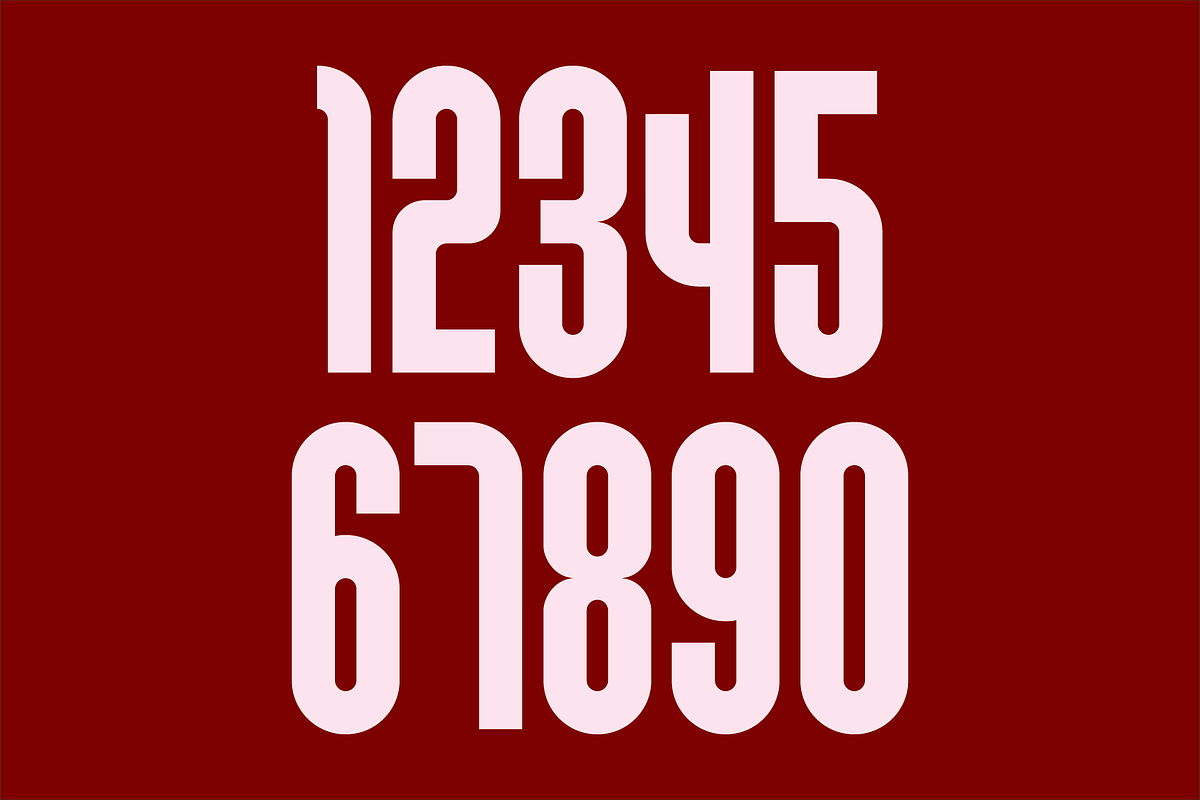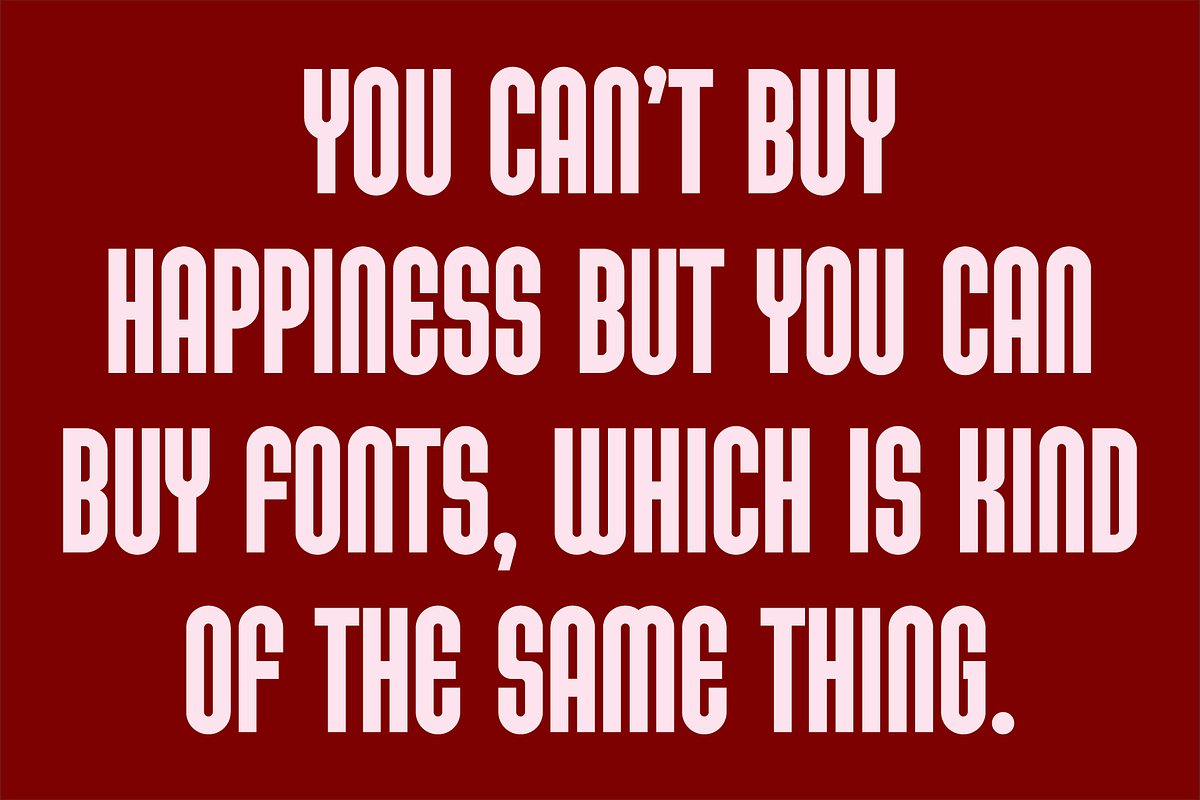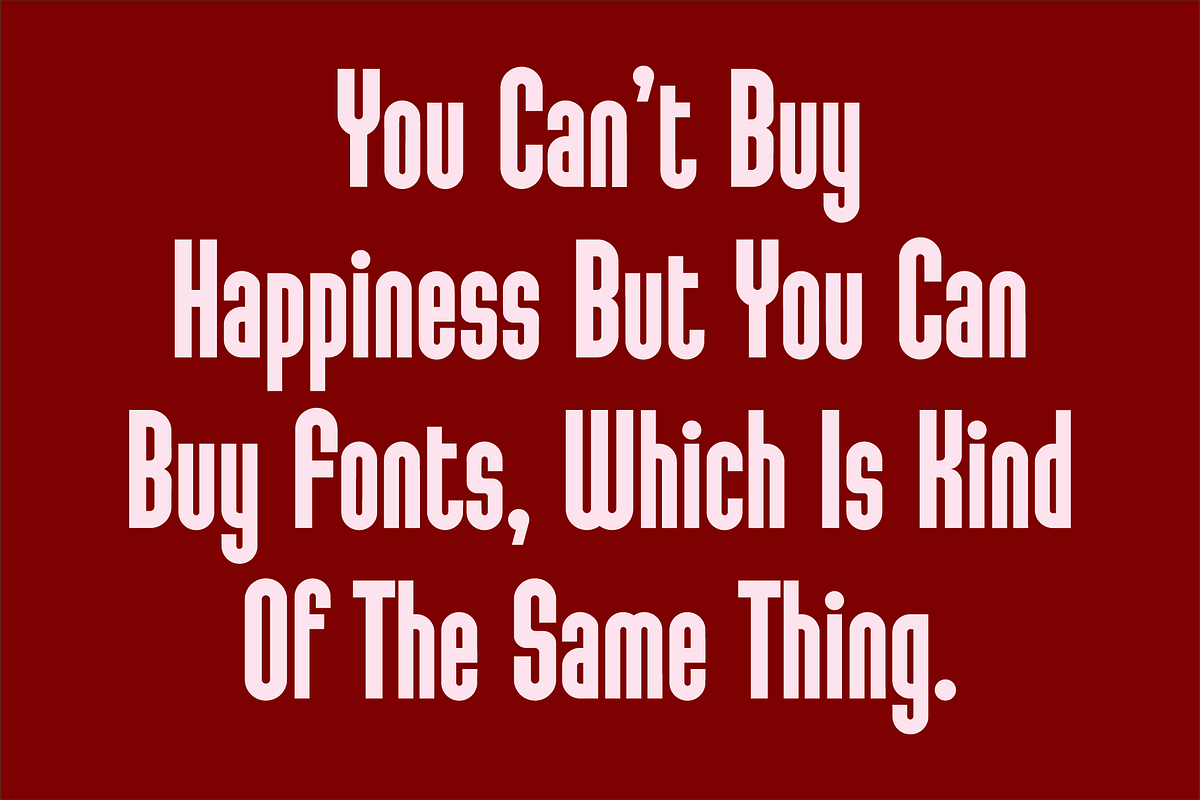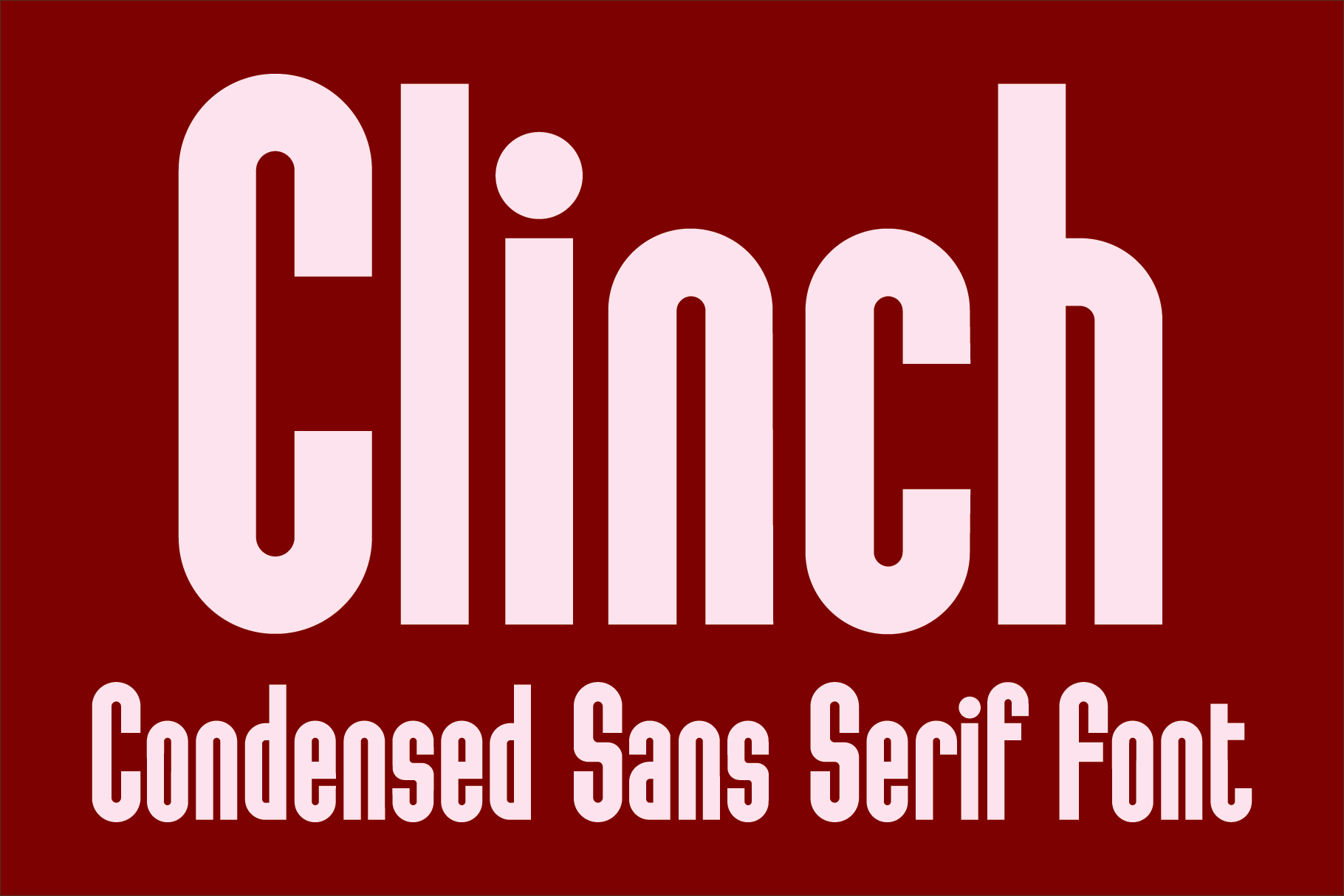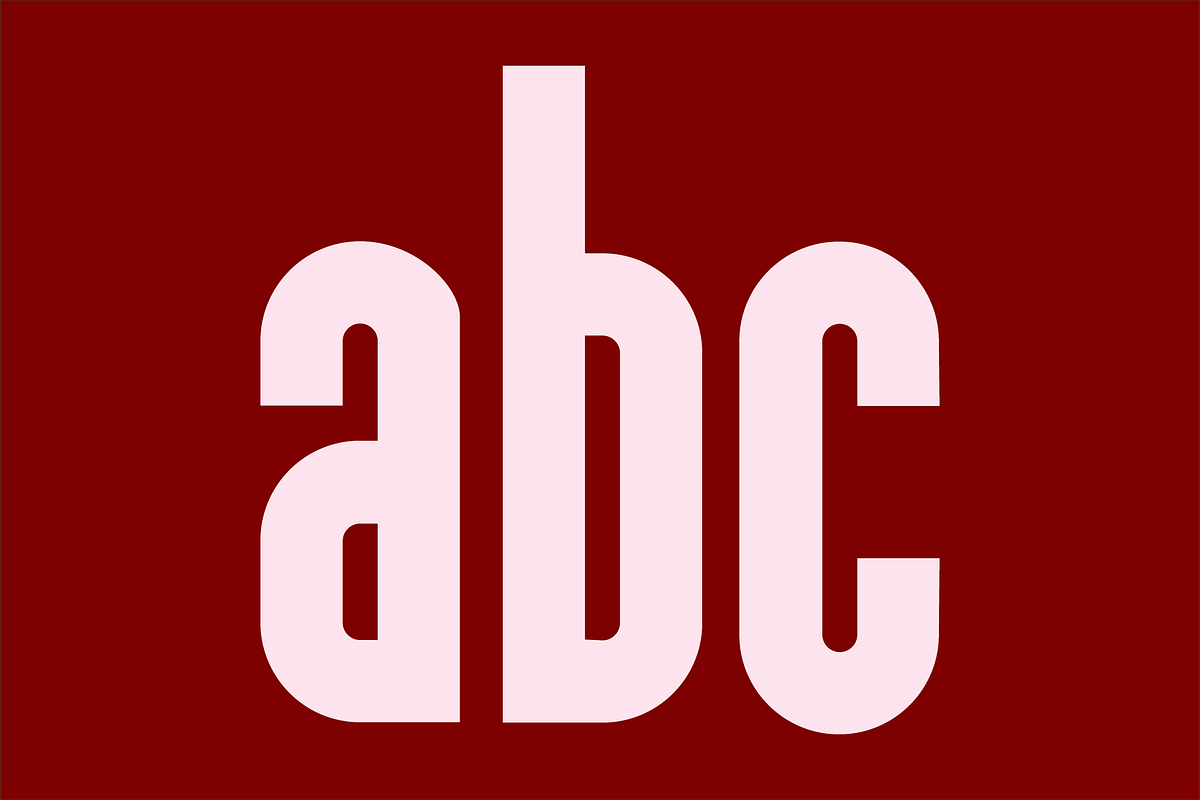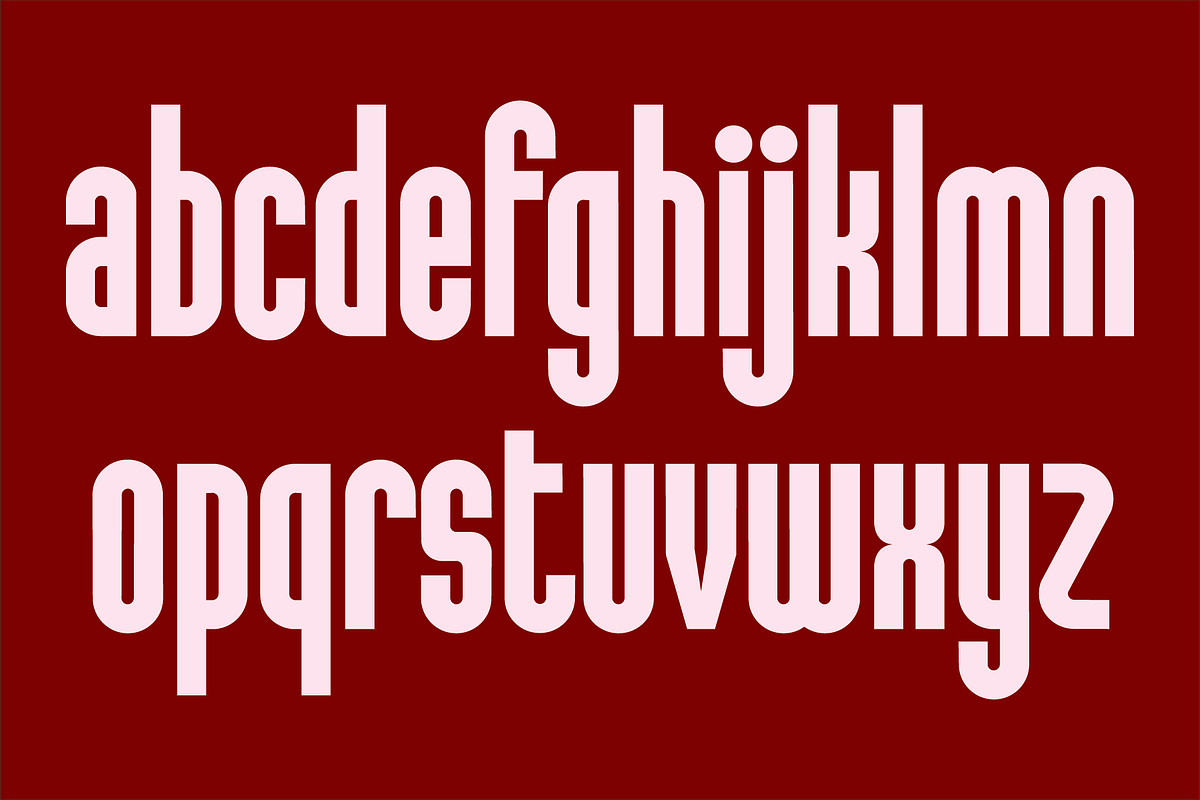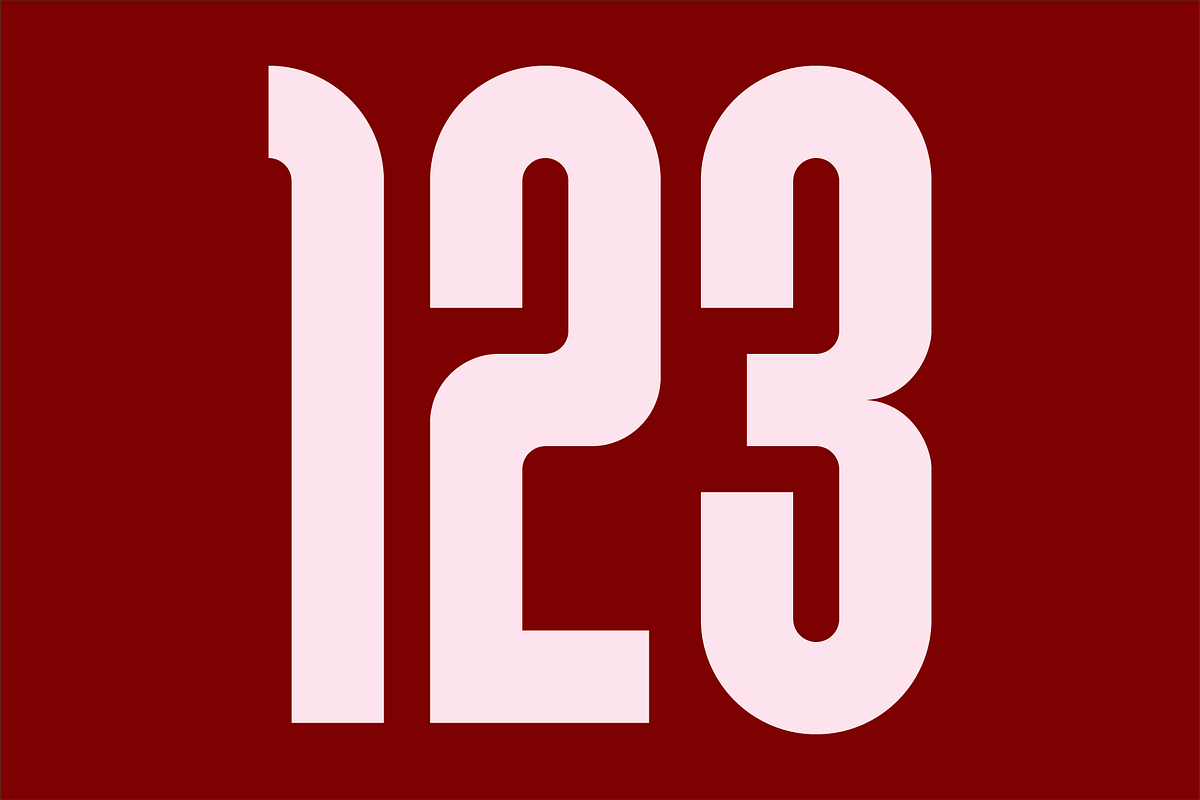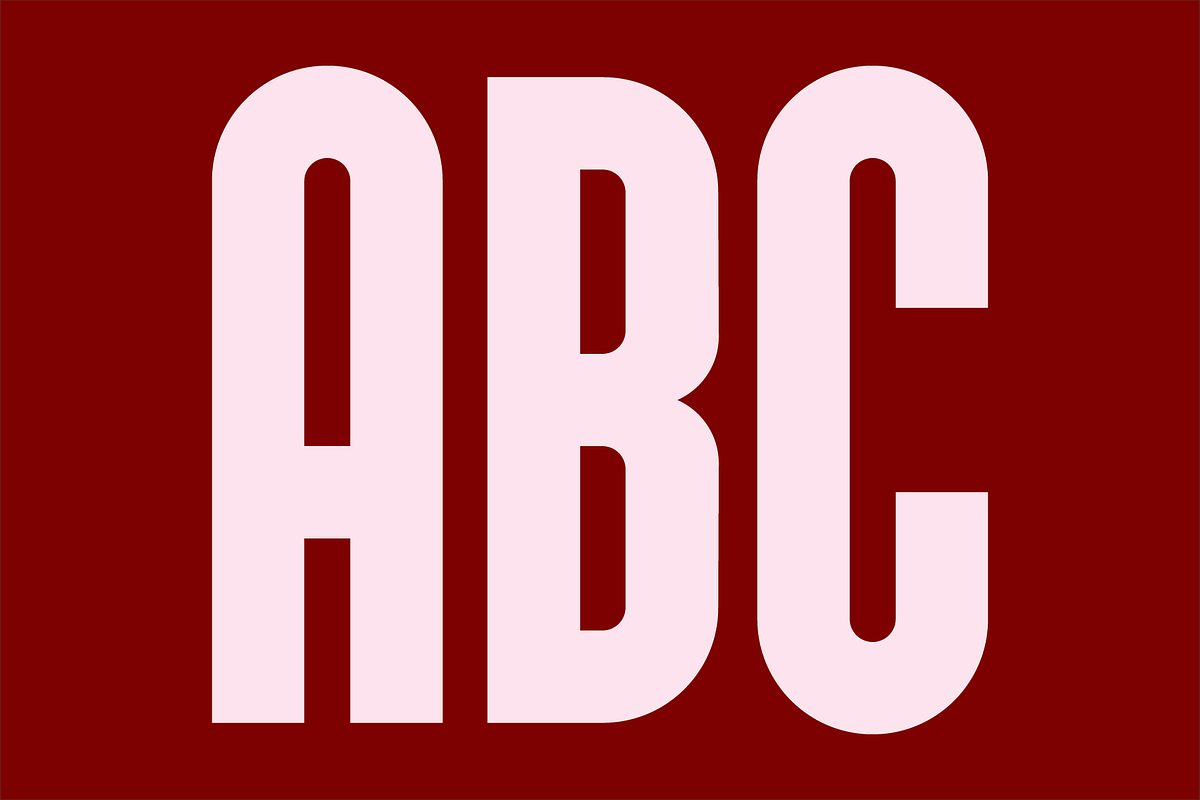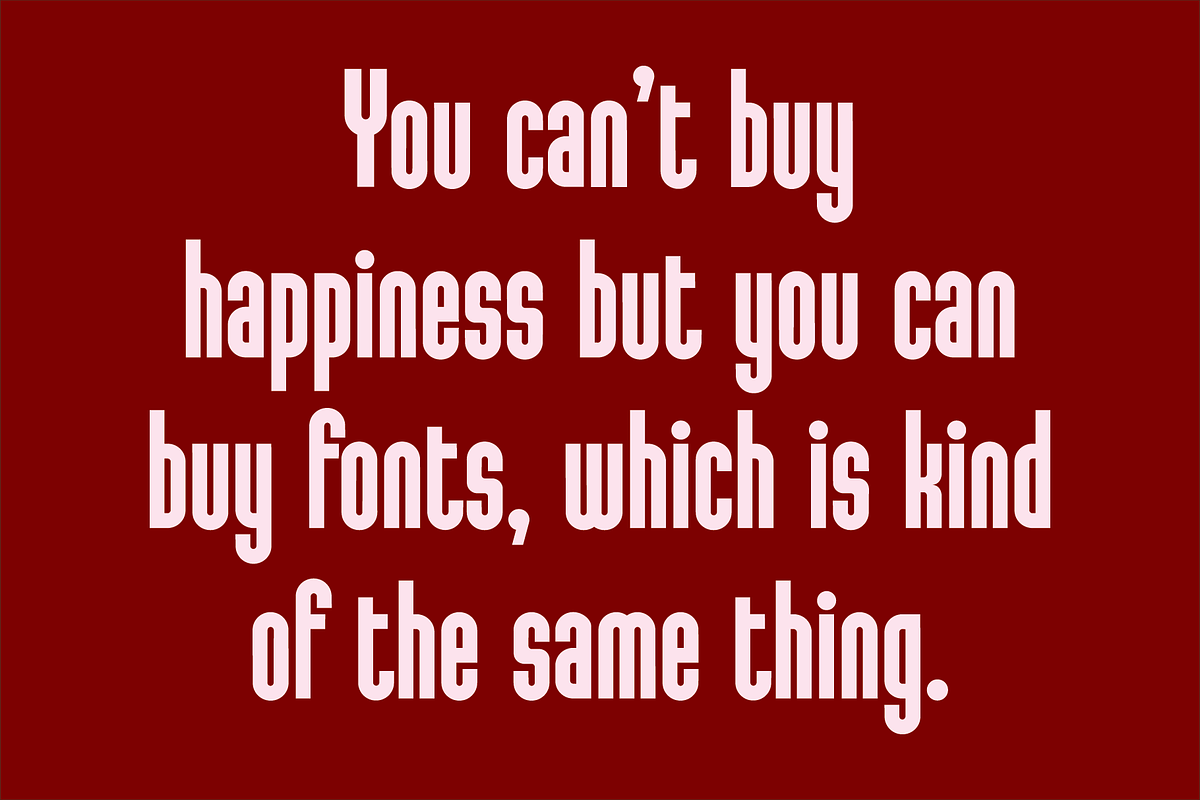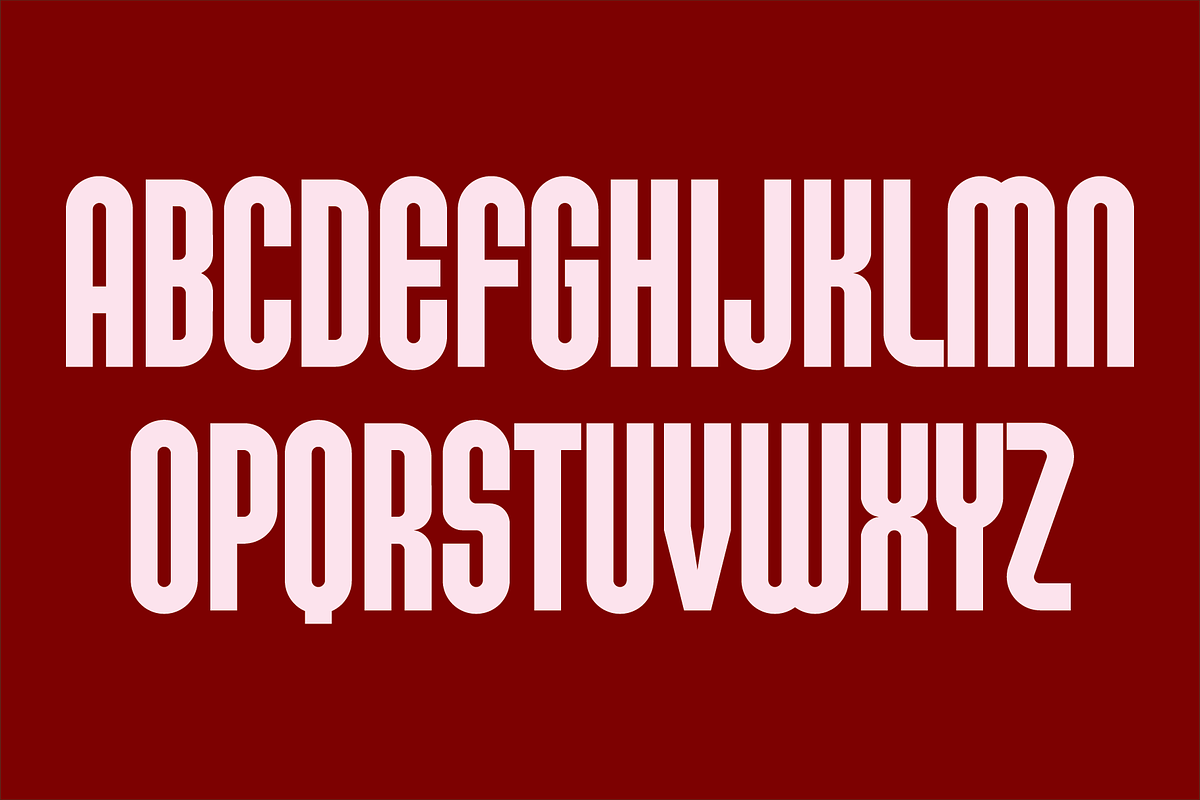
Clinch - Sans Serif Font
Clinch is a clean, contemporary, condensed sans serif font. It is ideal for headlines, titles, branding, and small blocks of text.